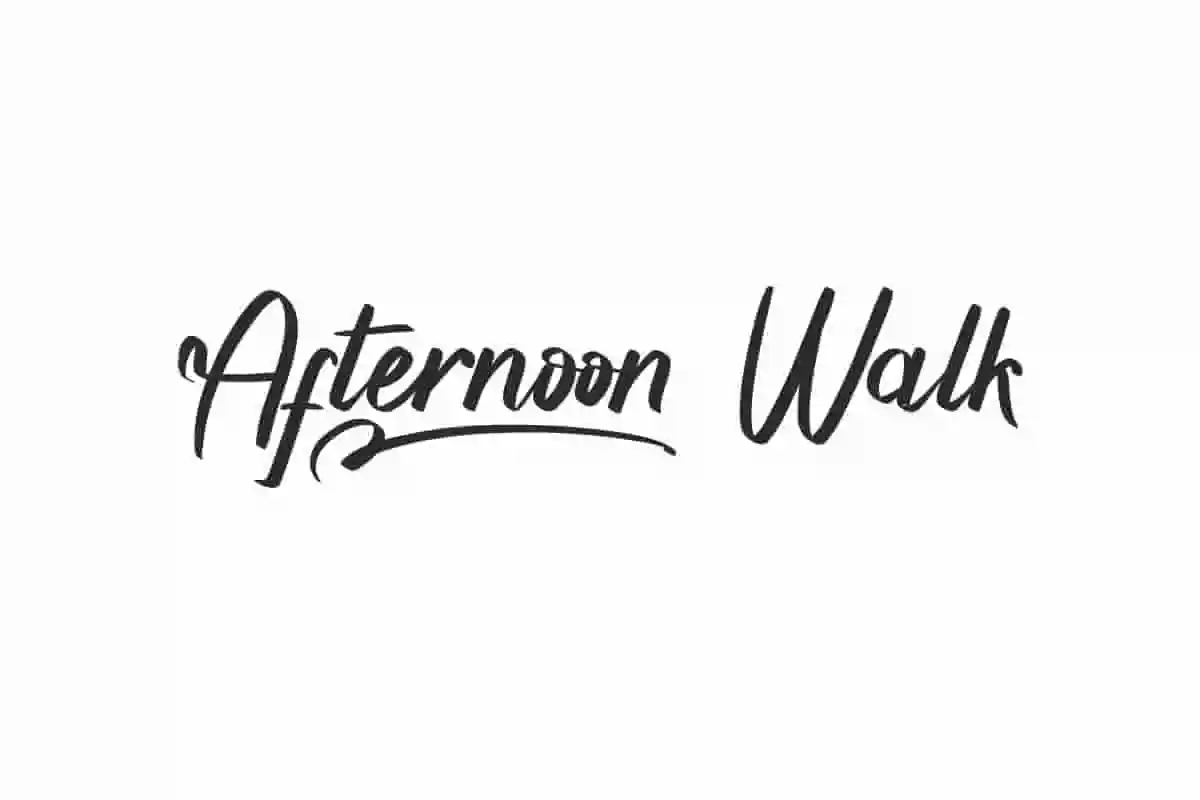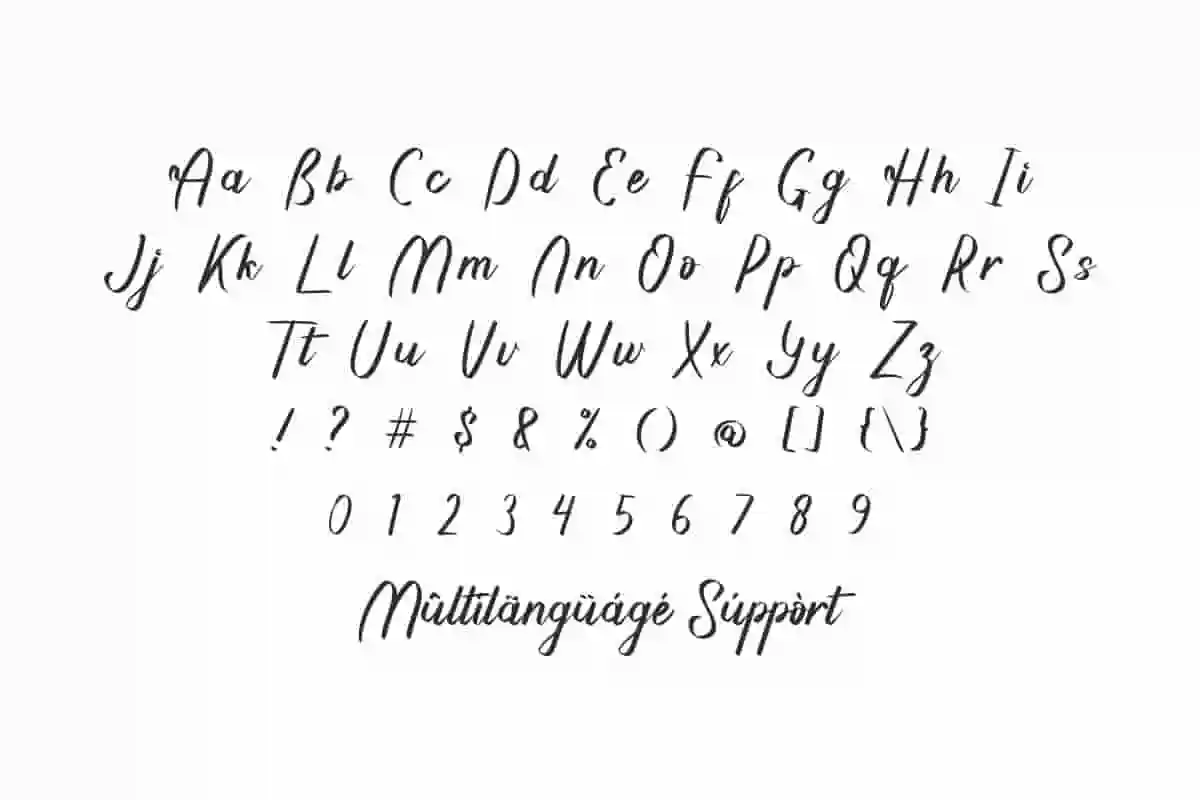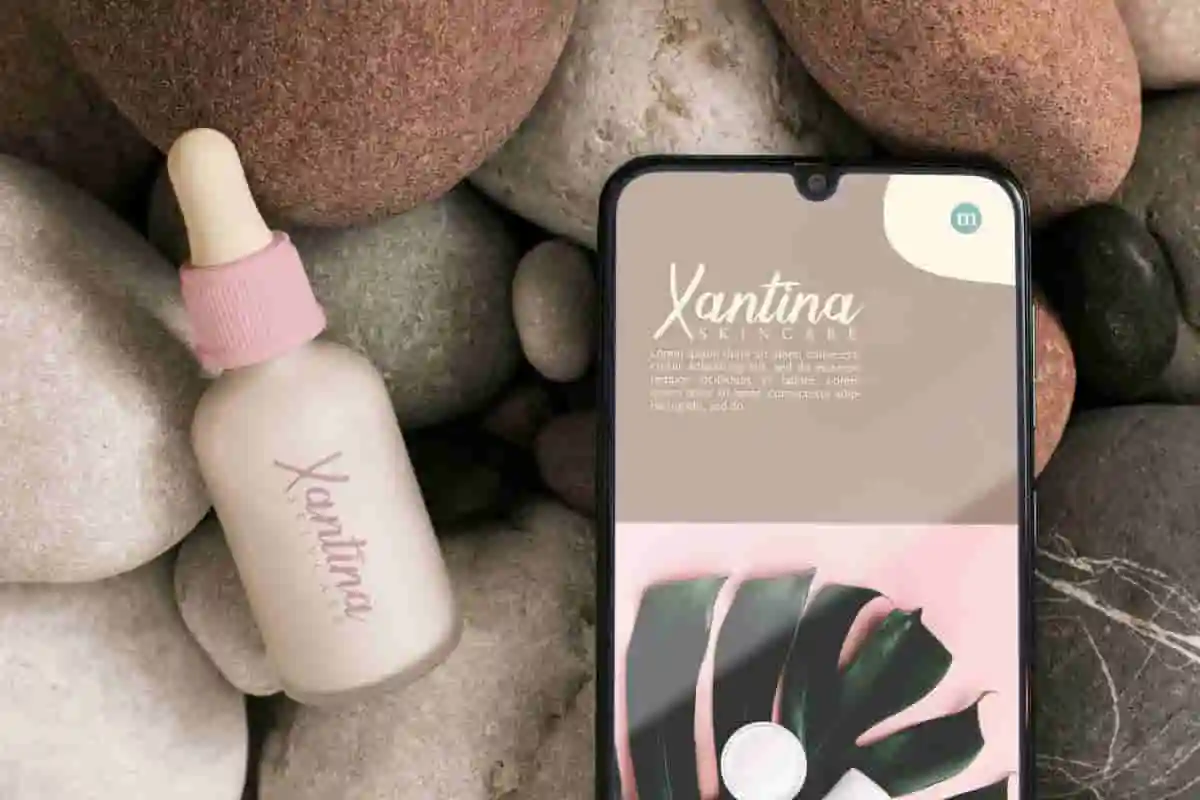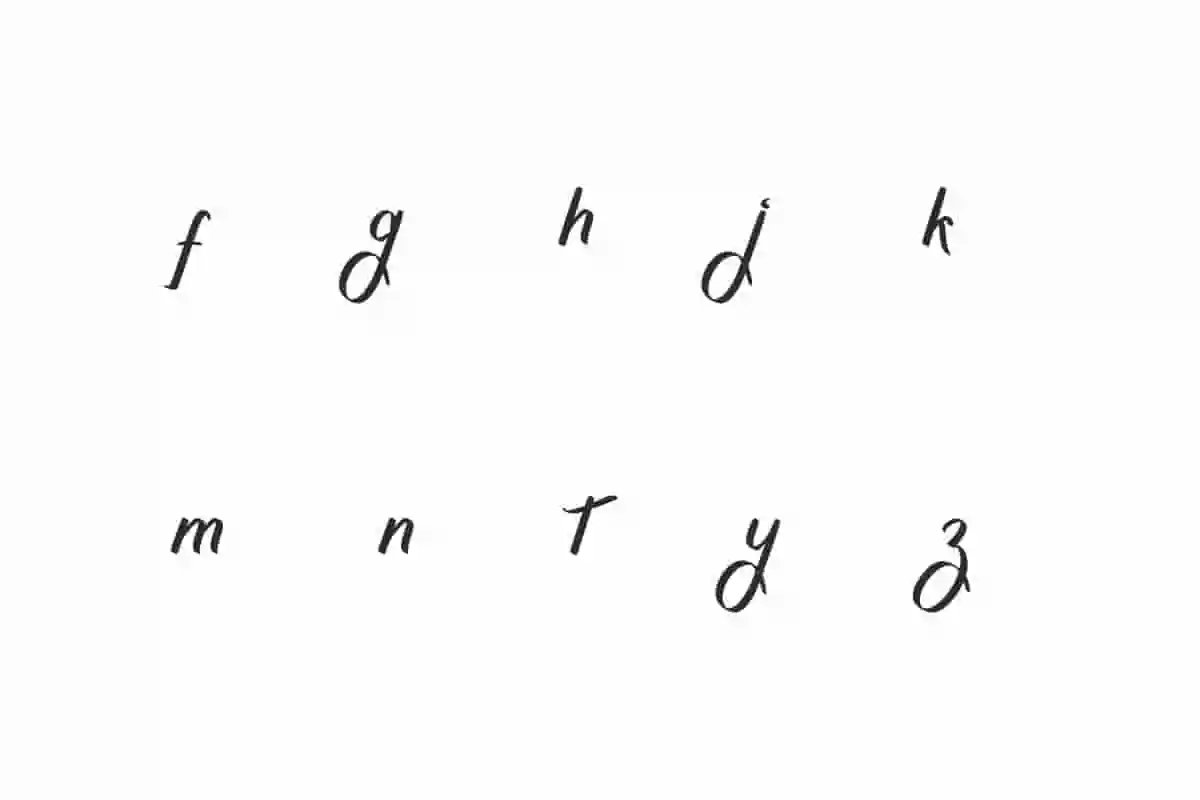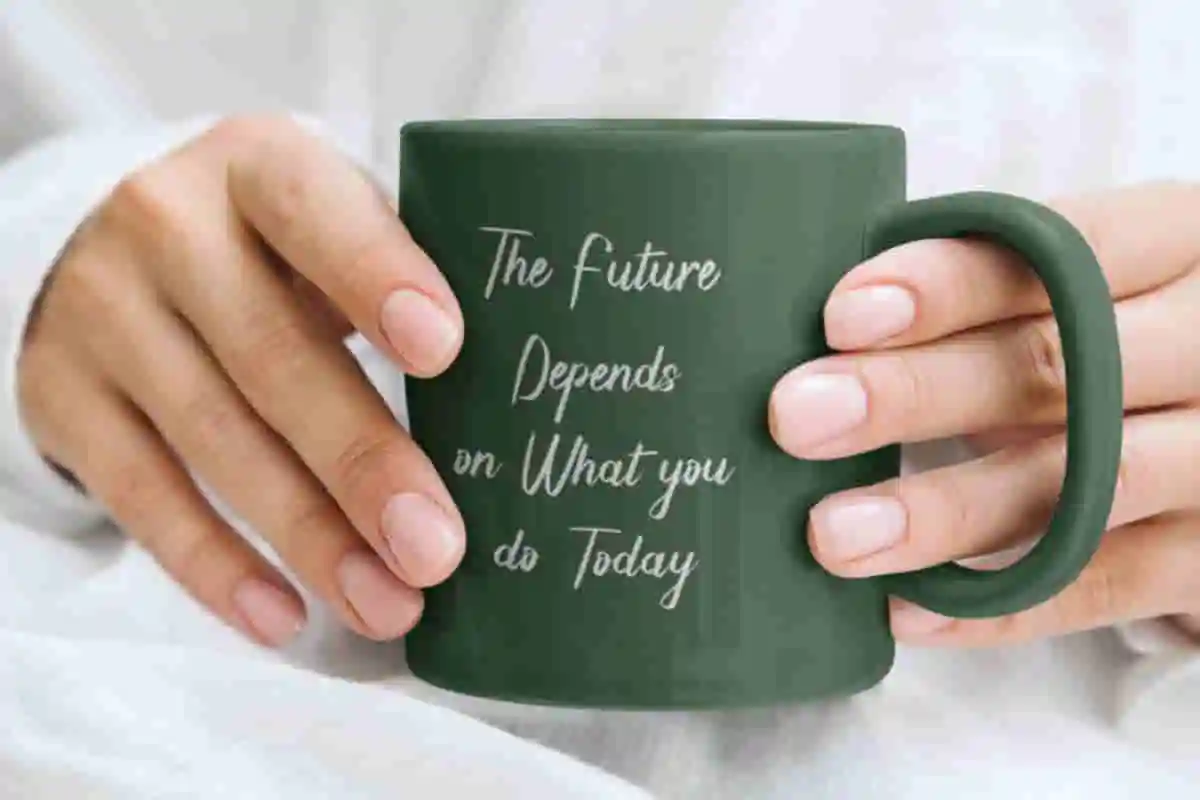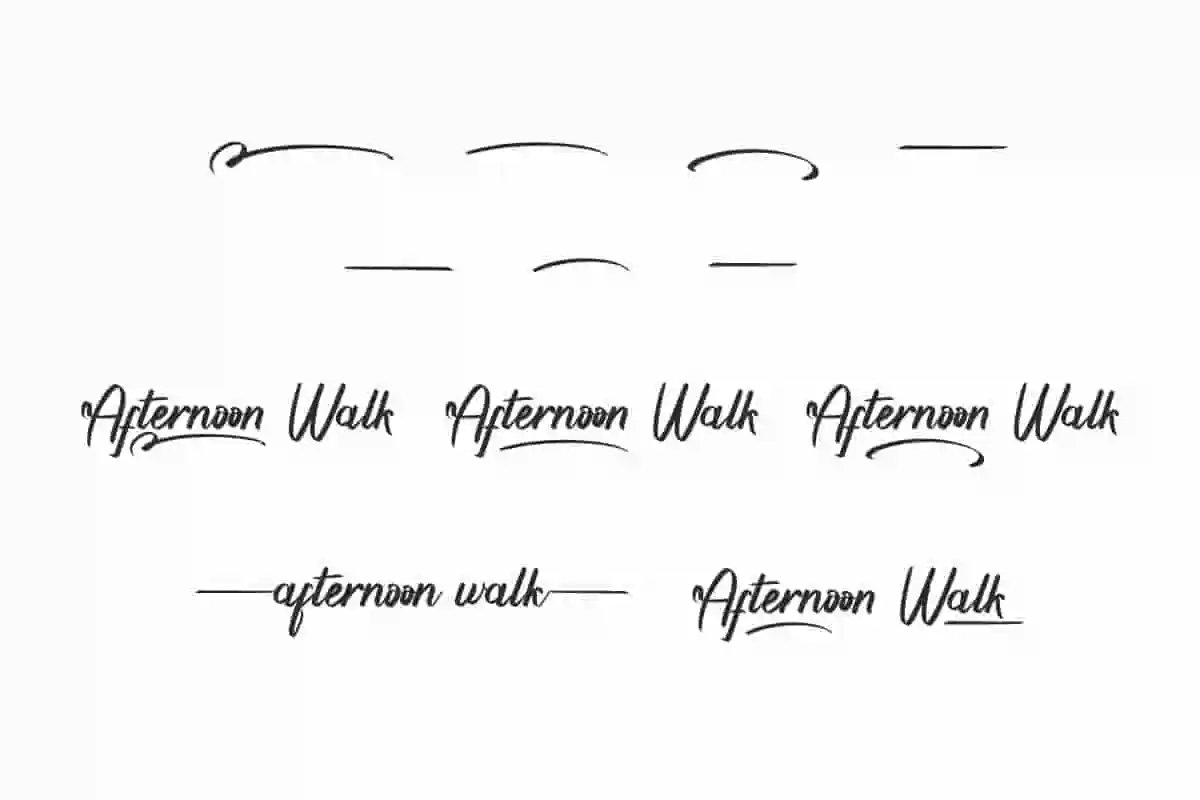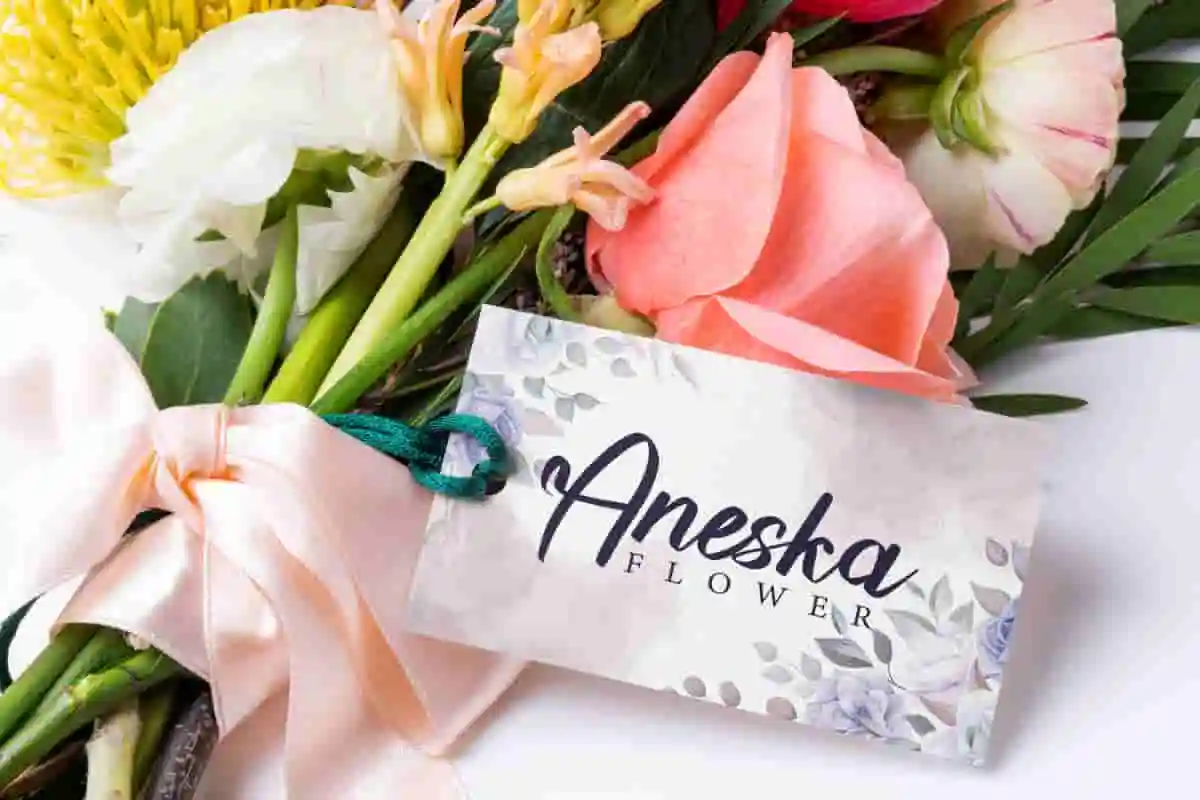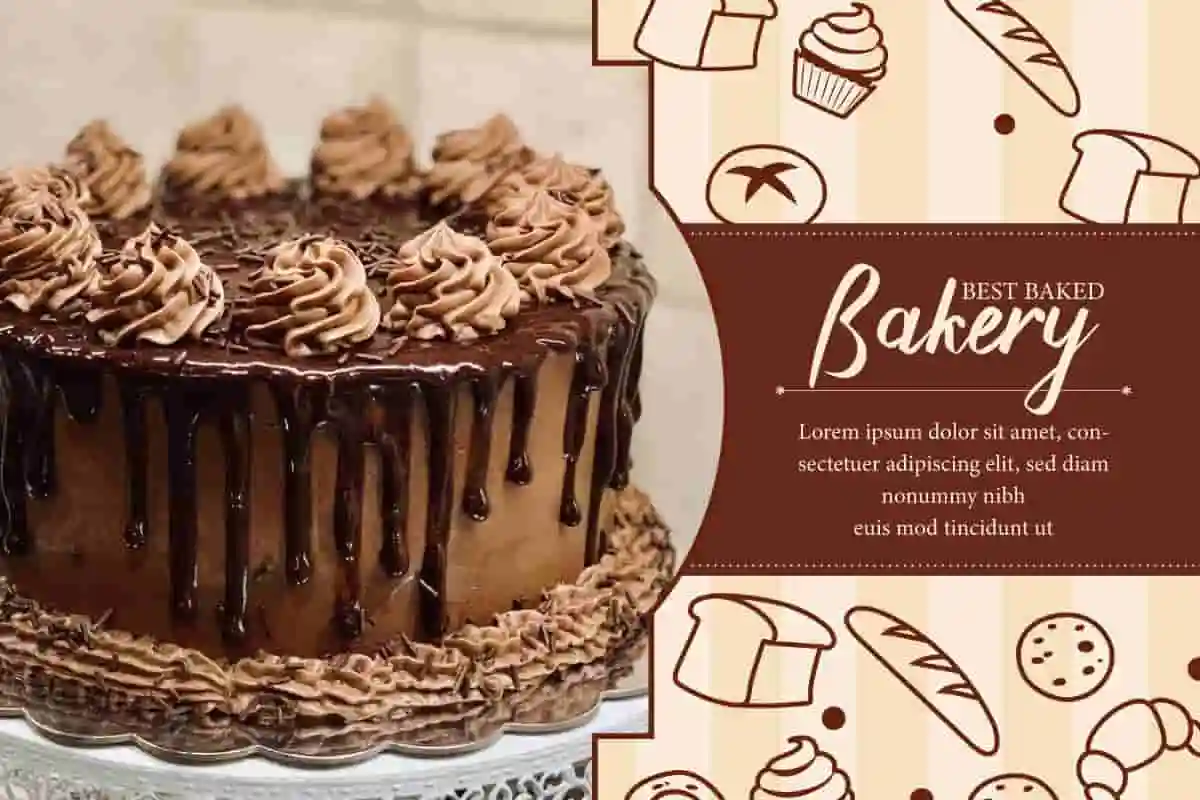
Afternoon Walk Font is an awesome casual calligraphy font crafted by NihStudio with an unpretentious look. It would be perfect for cover, florist, signage, spa salon, website, etc.
Afternoon Walk Font is an awesome casual calligraphy font crafted by NihStudio. This font gives a new look to the world of typography so it will add beauty to your designs, such as brand logo, business card, label, poster, product packaging, quote, screen print, signage, stationery, sticker, title, watermark, website, and much more!
Afternoon Walk Font comes with a full set of Uppercase and Lowercase Basic Characters, Number, Punctuation, Symbol. It also features Alternate and Swoosh characters to create artistic value in the font. Use this for your business industry such bakery, beekeeping, florist, food or drink, furniture, photography, printing, publishing, real estate, restaurant, skincare, spa salon, etc.